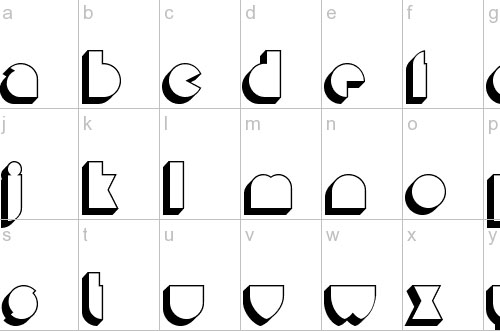
Today, 3D fonts are now making its way to various designs.
With the help of these fonts, you can make text designs that may be different from the usual. When used with appealing design and creativity, the text or words may seem more alive making it more fun and attractive to the eyes of the viewers.
In this article, I’ve showcased 40 Useful 3D-effect Fonts. This collection consists of different 3D fonts for you to choose from. These may include the font that you need. Best of all, they are all free to download. So why not check them out. Come, take a peek, and choose your pick.
Koobz
C Rial
Kotak
SHO-CARD
Jabjai
Dullard
3D Noise
Decade 3d
Esquisito
Flim-Flam
Isometric
Fh Ugly
3D Fonts
Captain Lethargic
Block 1900
Shutdown!
Wedgie
Cartoonia 3D
Stoney Billy
Green Piloww
Pointy Solid
ZOINKFAT
Mental Freak
Cubicle
White
Bobsmade Font
3Dumb & 2Dumb
Blog the Impaler
Pee Pants Script
Misirlou Day